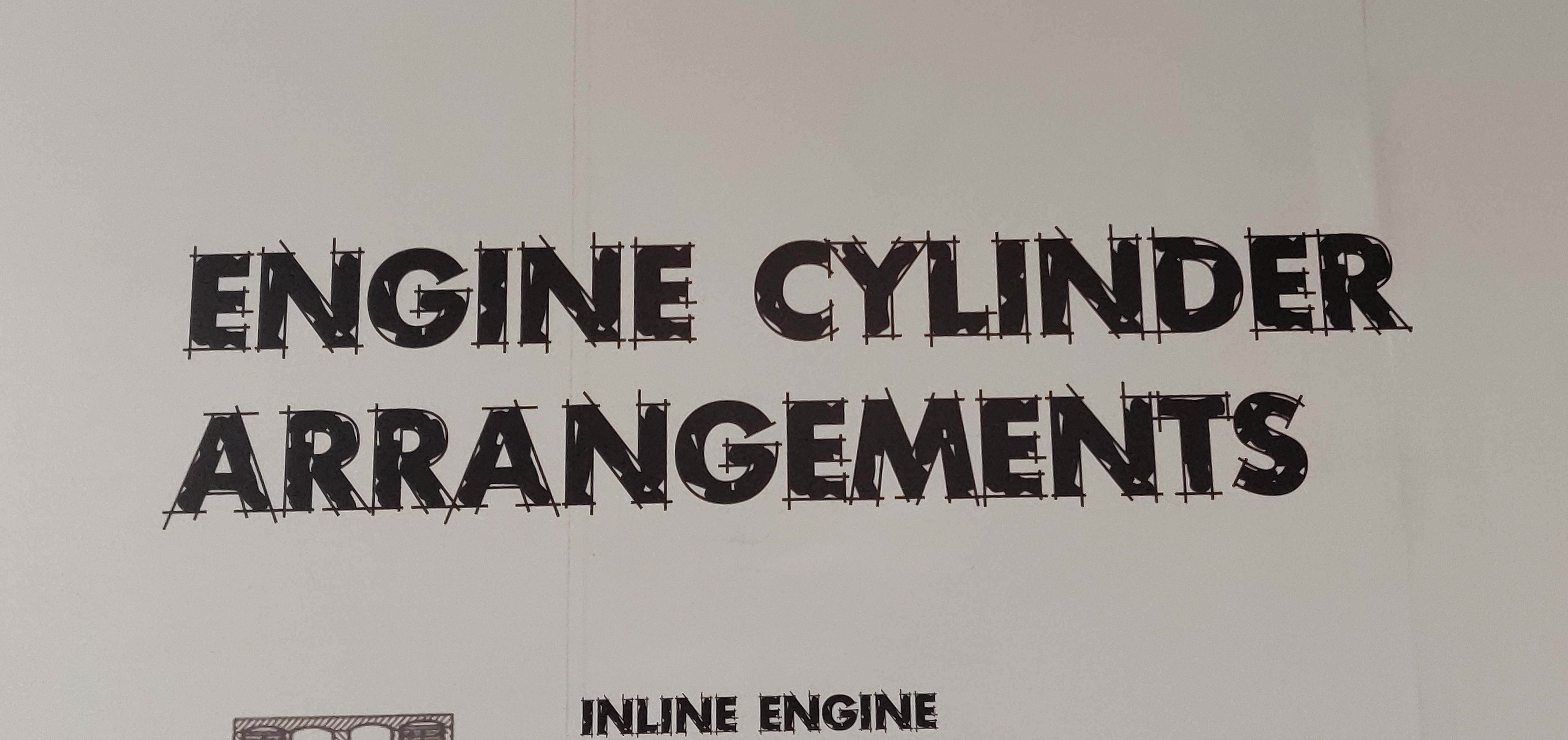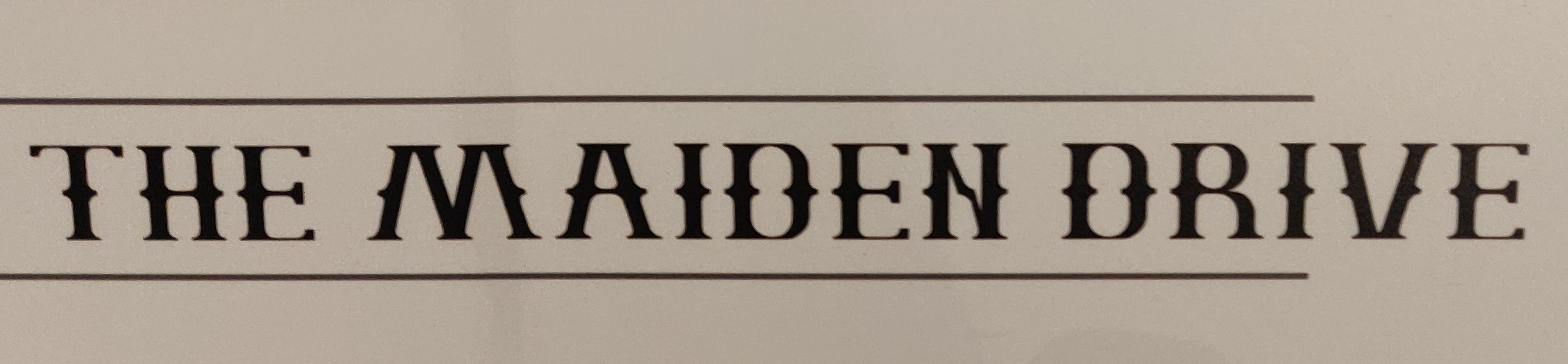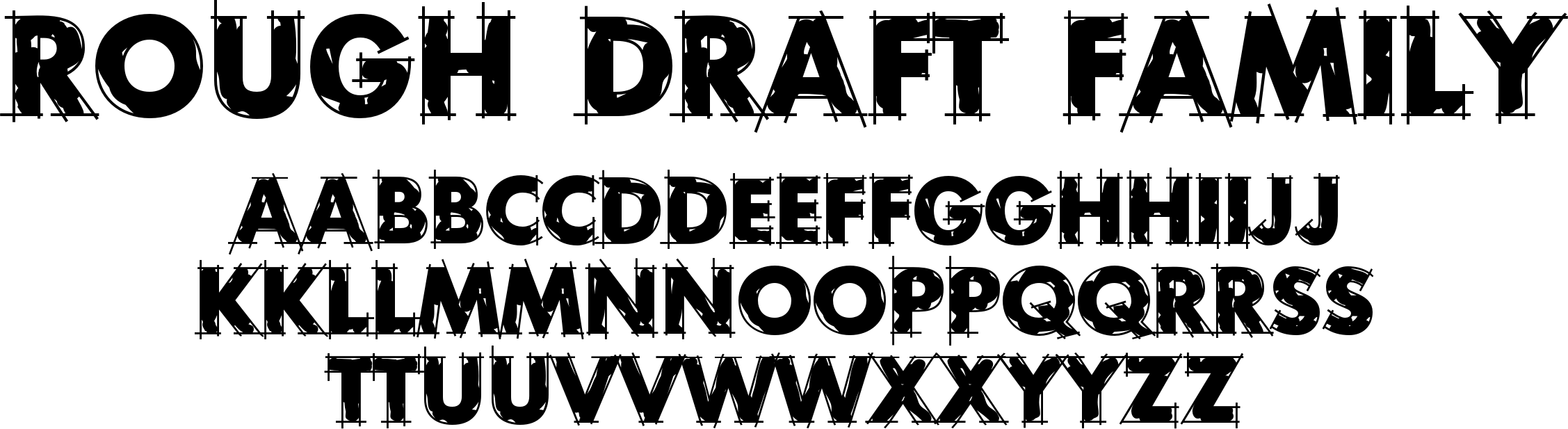
Found this beautiful typefaces, but I don’t know what’s it called. Maybe it’s custom made. Please help me out!!
From where you got this?
From a museum in india
the bottom one is called Rough Draft…I can only find it as a free font and not on any sites I’d be willing to download it from. If you use it commercially, be sure the EULA says you can.
The top one…no joy. it looks like a really bad knock off of one of the Cowboy Western style of typeface.
The top one is called … the bartender …
Rough Draft is available from Font Bros…
I think this is their own creation.
Did’t you ask to museum curator about this?
Souravjns, the typefaces are known free fonts, probably worth every penny you pay for them… I would bet the curator of the museum isn’t going to know without contacting the designer. Maybe the exhibit specialist would know. But that step is not necessary.
Poojana, you are going to have to check the owners’ websites on these to see if you can use them for commercial work. Quite honestly, I’d avoid them like the plague, but that’s just me.
First one is called =>The Bartender Regular
The second one looks Alike=> Montreal Serial Xbold Italic